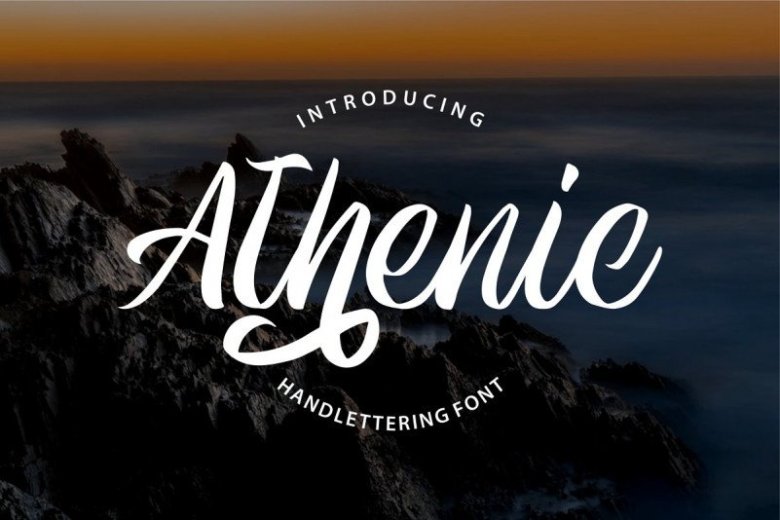
Athenic Script Font
This is a new modern & fresh script with a handwritten and calligraphy style make this font looks elegant, natural. Designed to combine perfectly and allow you to create stunning hand-lettering quickly and easily! Introducing Athenic Font. It’s designed and shared by Good Java Studio. It also comes with a clean and aged style each font. The classic feel is really perfect for you who needs a typeface for especially logotype, apparel, invitation, branding, packaging, advertising etc. This typeface is comes in uppercase, lowercase, punctuations, symbols & numerals and PUA encoded is already